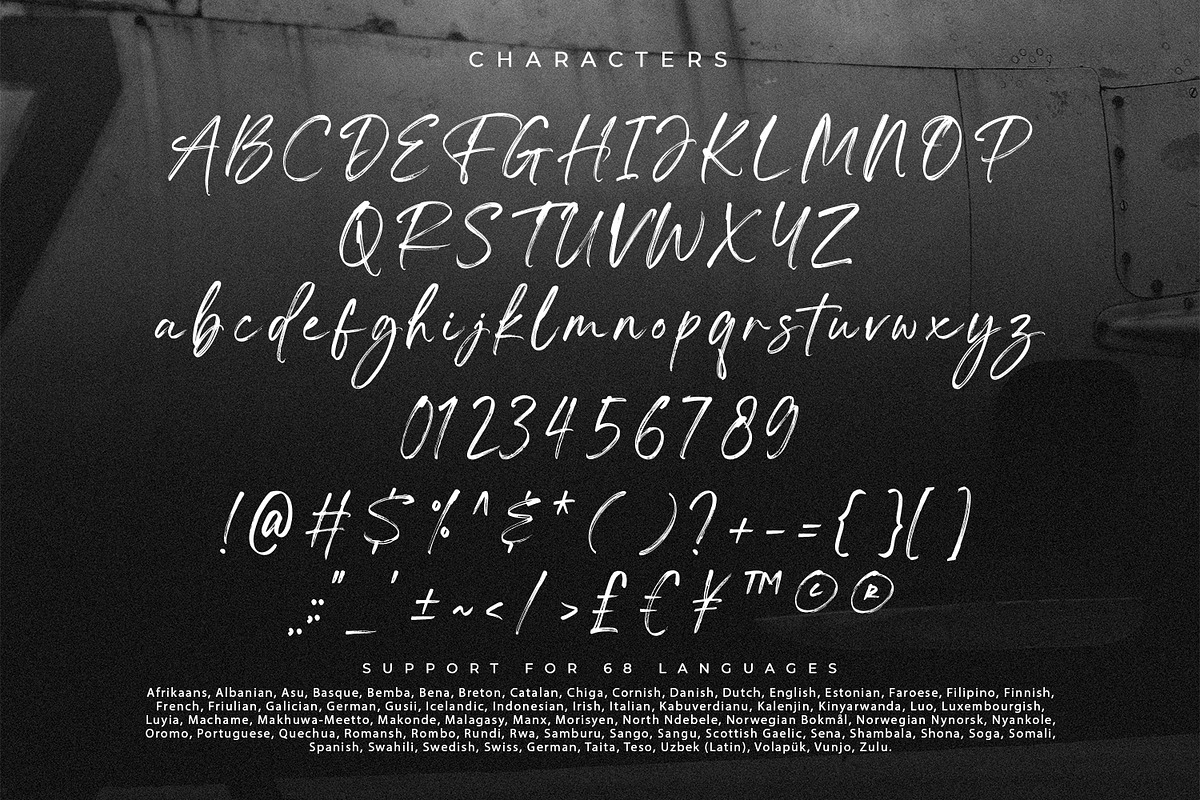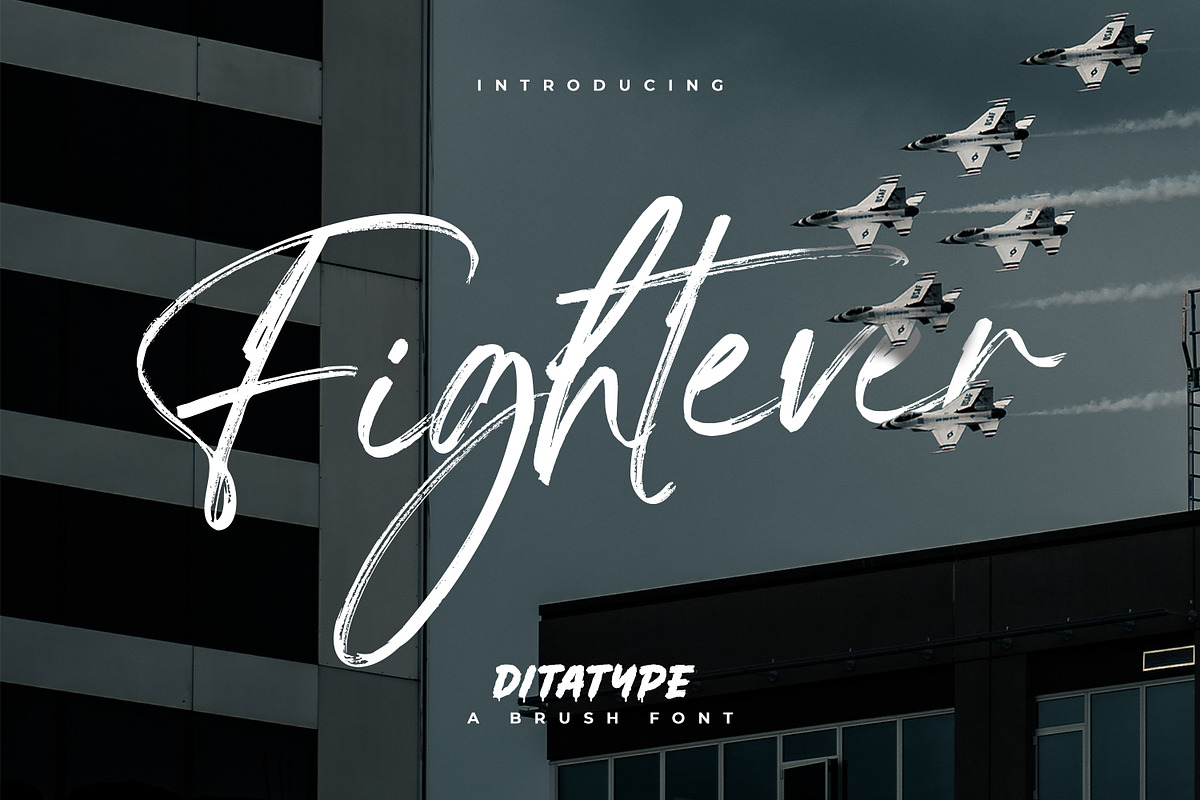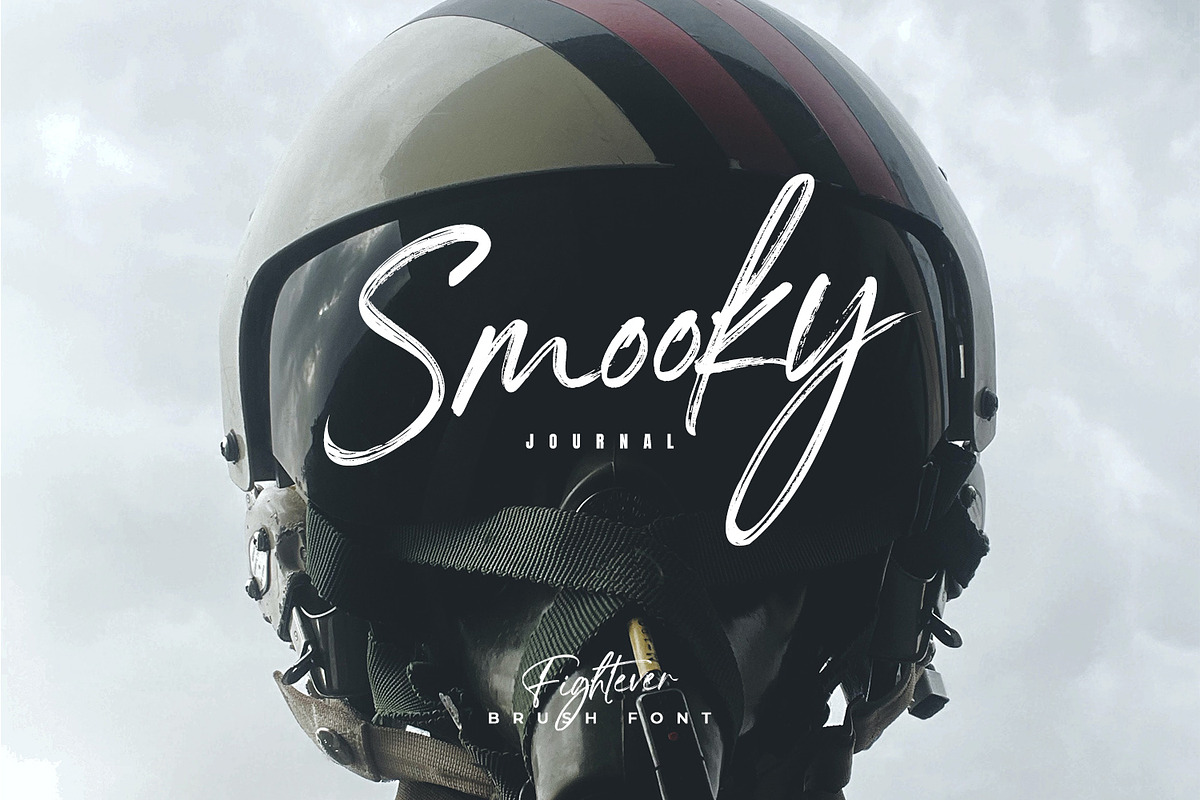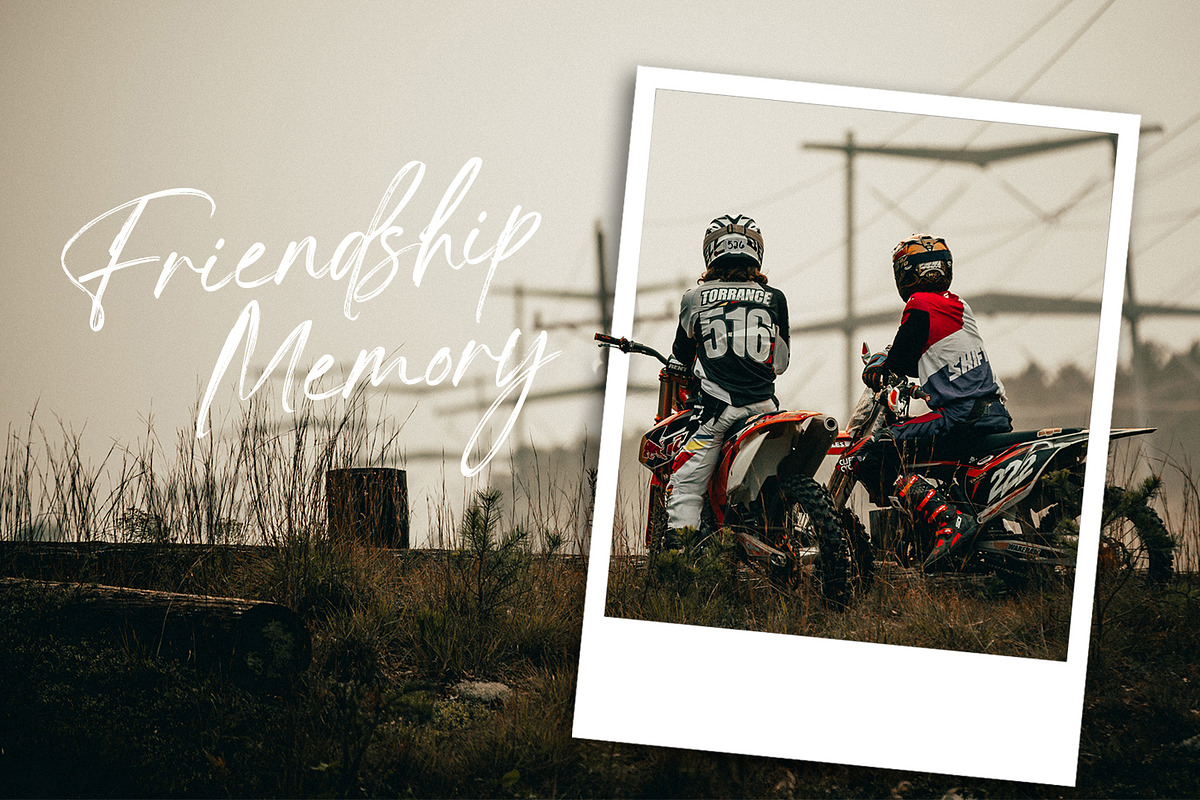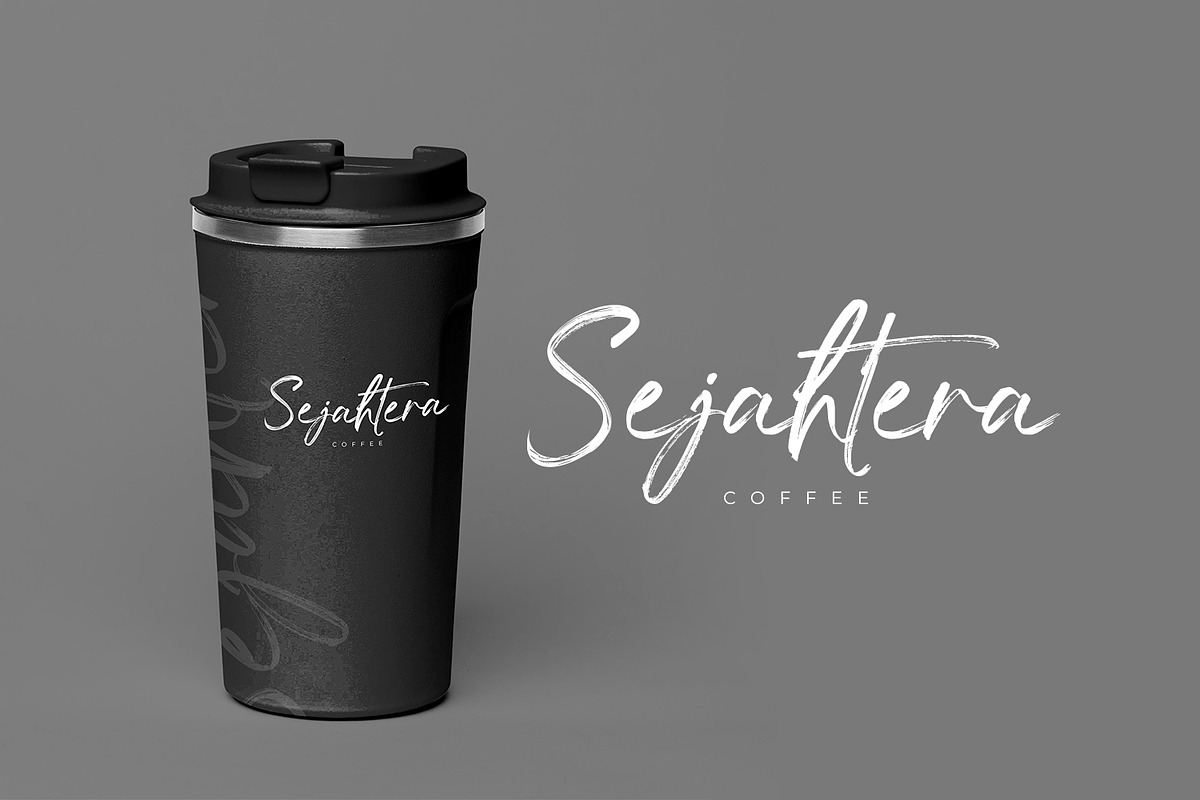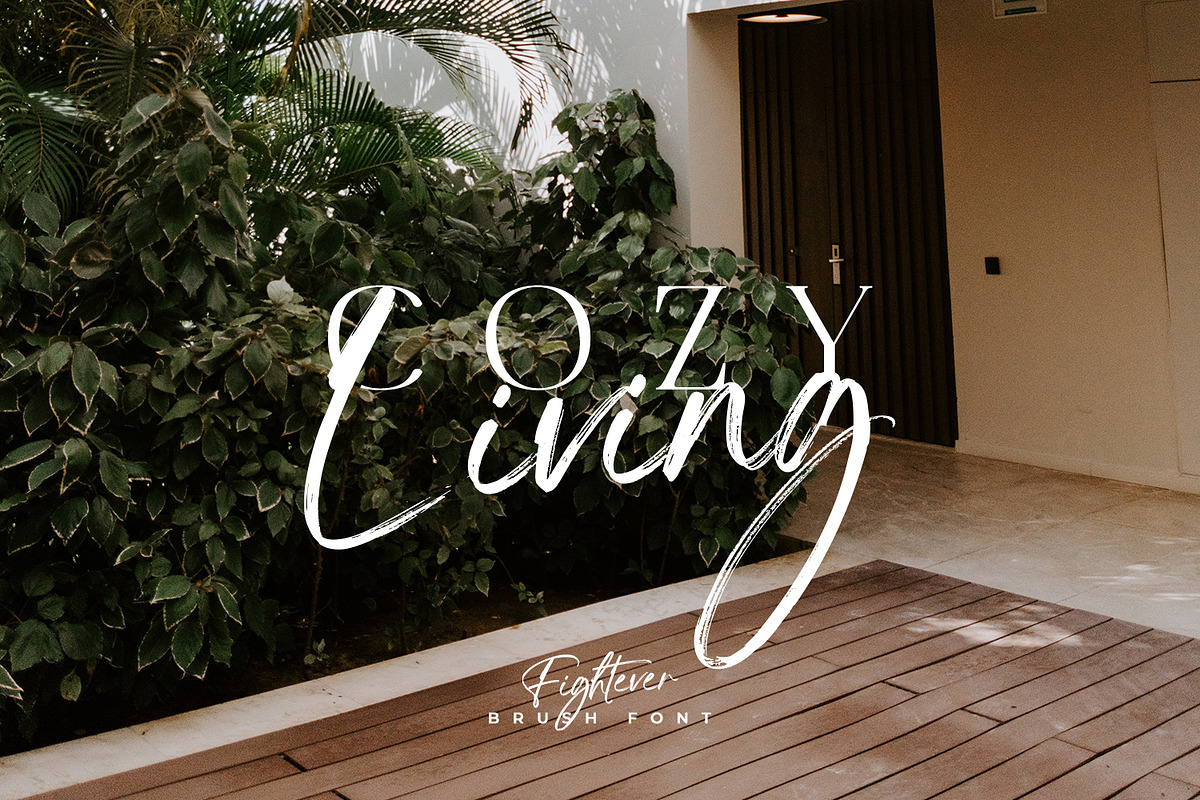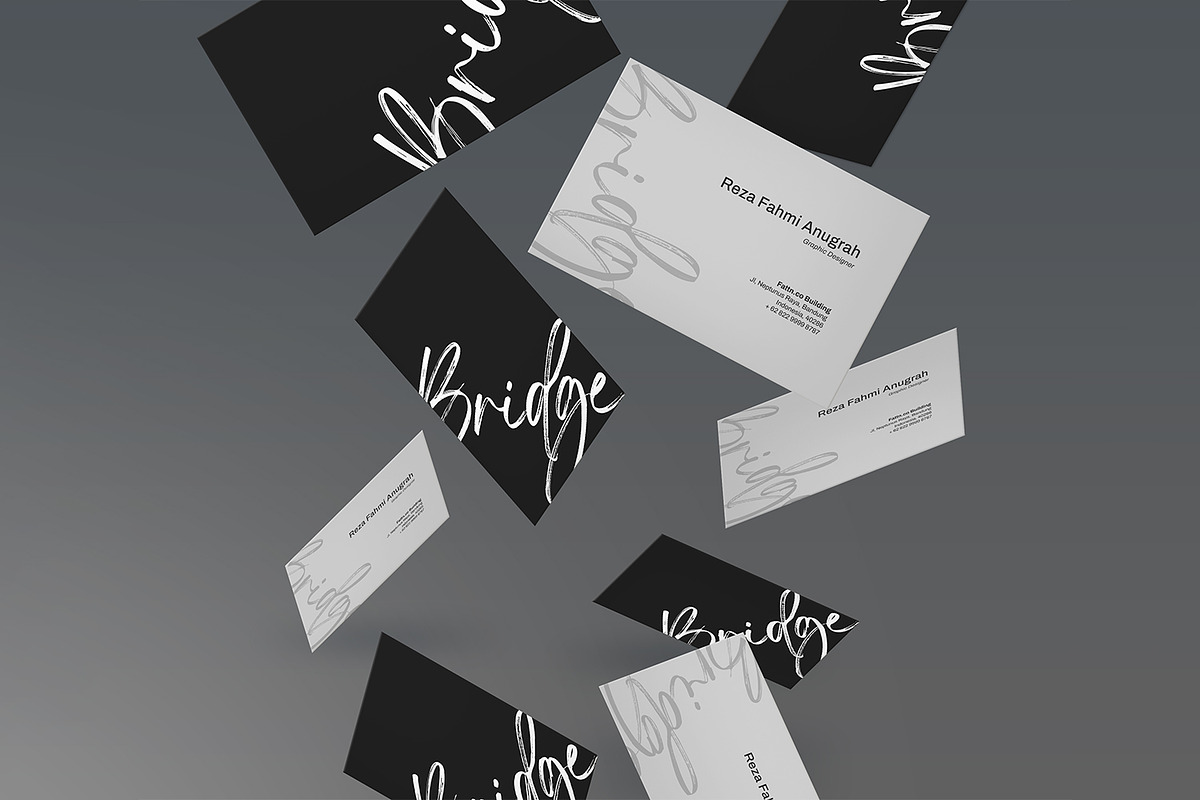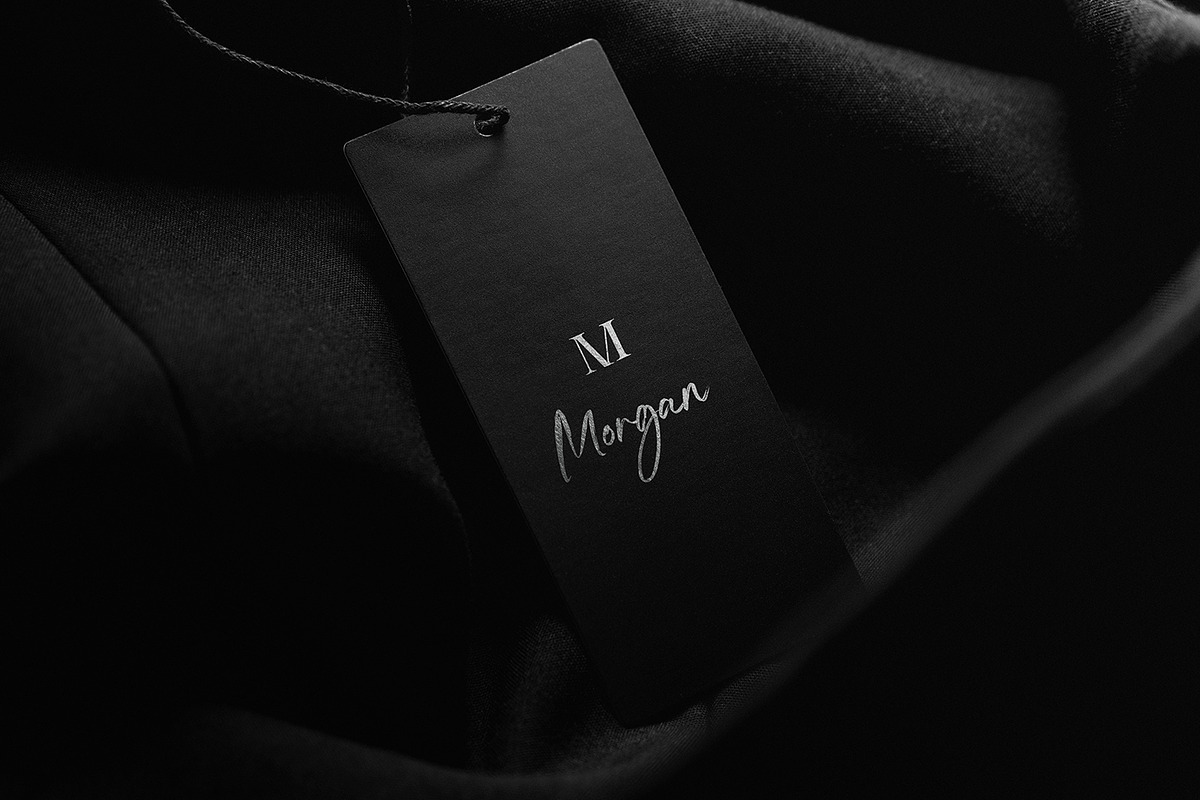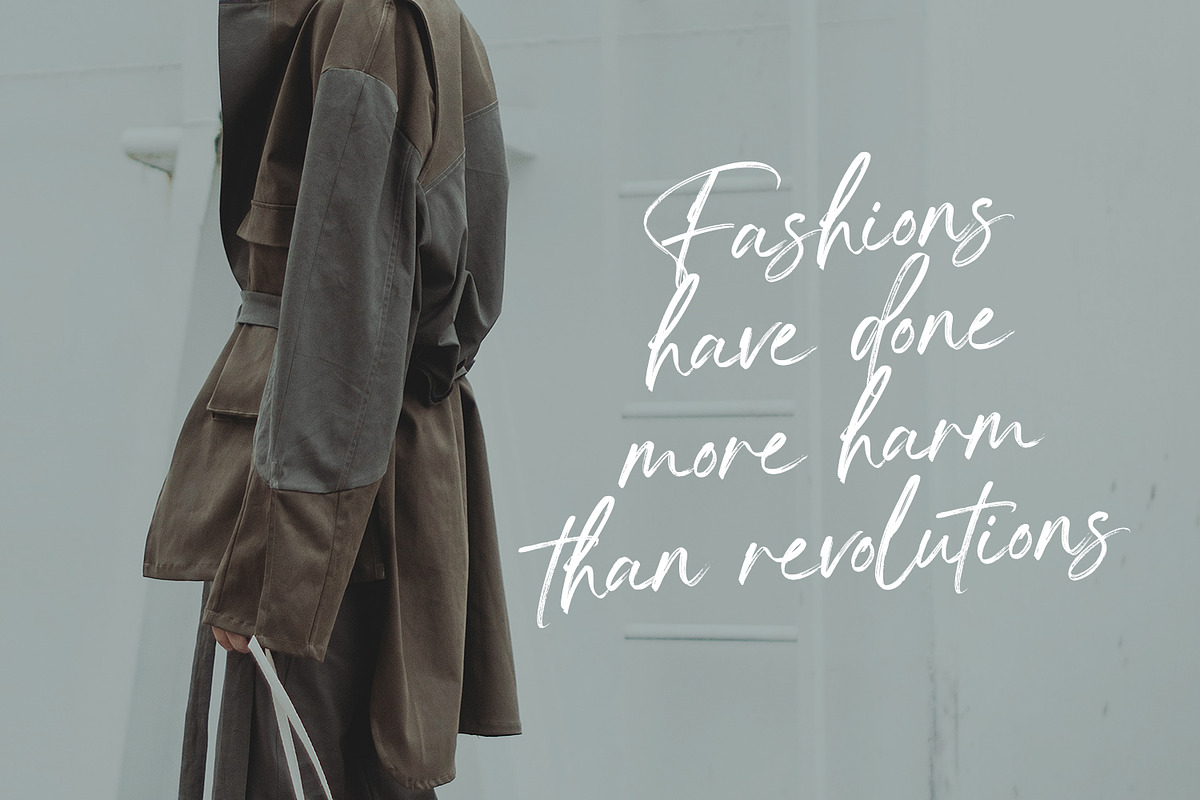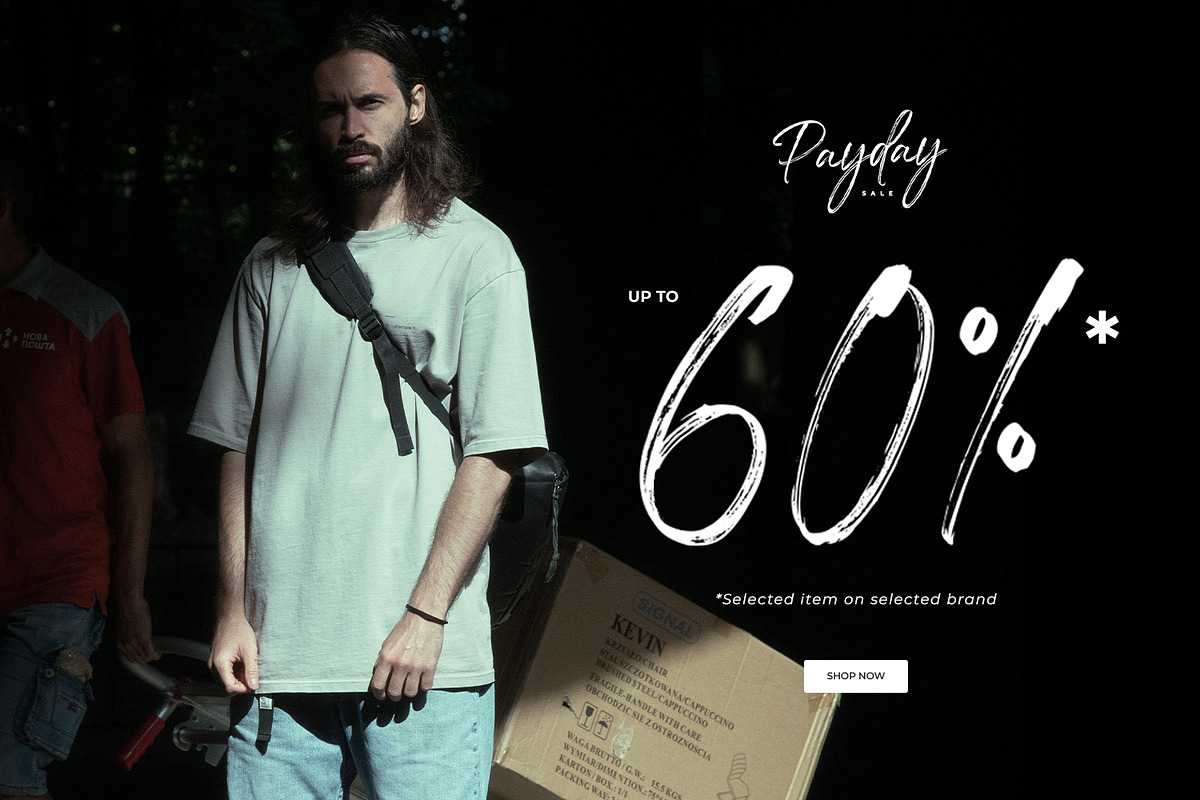
Fightever
Fightever is an expressive script font that embodies the boldness and energy of a brushstroke. With its interconnected letters and dynamic design, this typeface brings a sense of movement and liveliness to your projects. The defining feature of Fightever lies in its connected brush style, where each letter flows seamlessly into the next. This interconnectedness creates a sense of continuity and fluidity, resembling the strokes of a brush gliding effortlessly across the canvas. The result is a script font that feels organic and natural, with each letter forming a harmonious composition. Fightever captures the essence of artistic expression. The font exudes a sense of raw energy and passion, as if every letter is infused with the brushstroke's vibrant movement. This dynamic style adds a touch of personality and uniqueness to your designs. Enjoy the various features available in this font.
Fightever perfect for logos, branding materials, invitations, or any design project that calls for a touch of handcrafted charm. This font will also work on designs related to art, fashion, hand-lettering, or any project that requires a personal touch, this font will bring an authentic and expressive feel. Find out more ways to use this font by taking a look at the font preview.